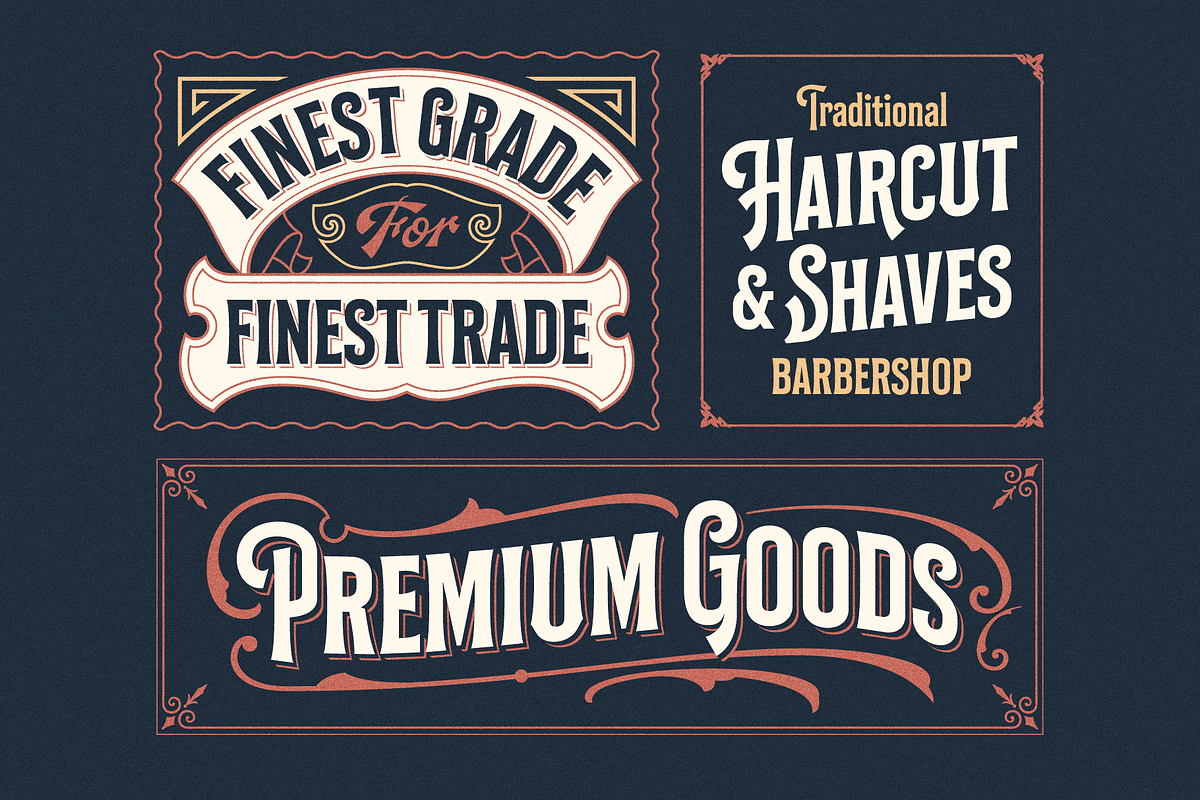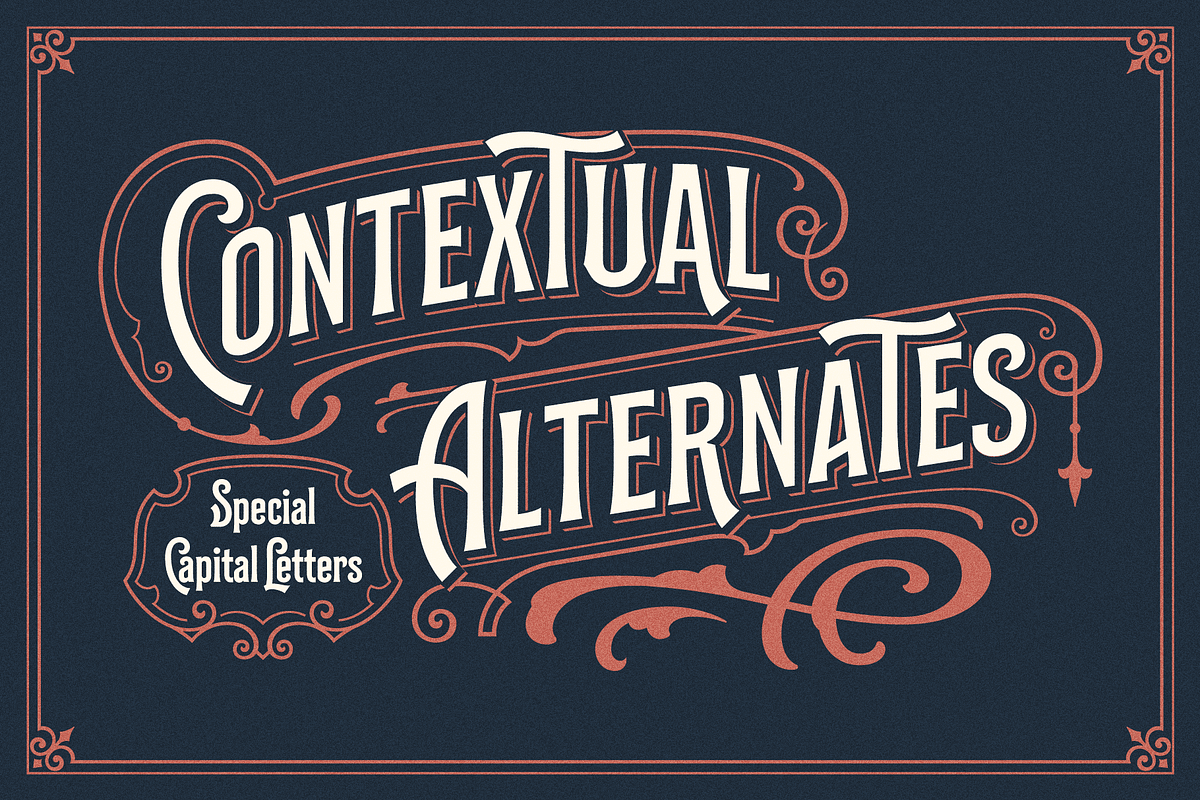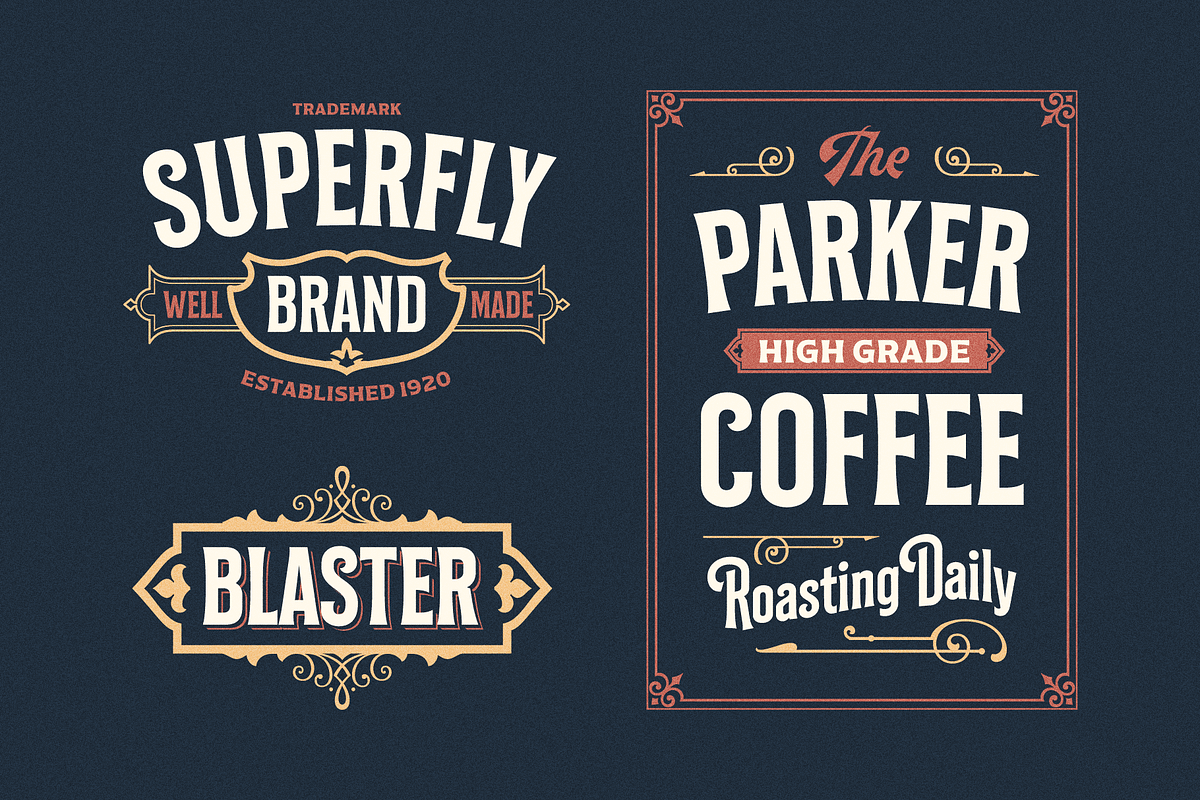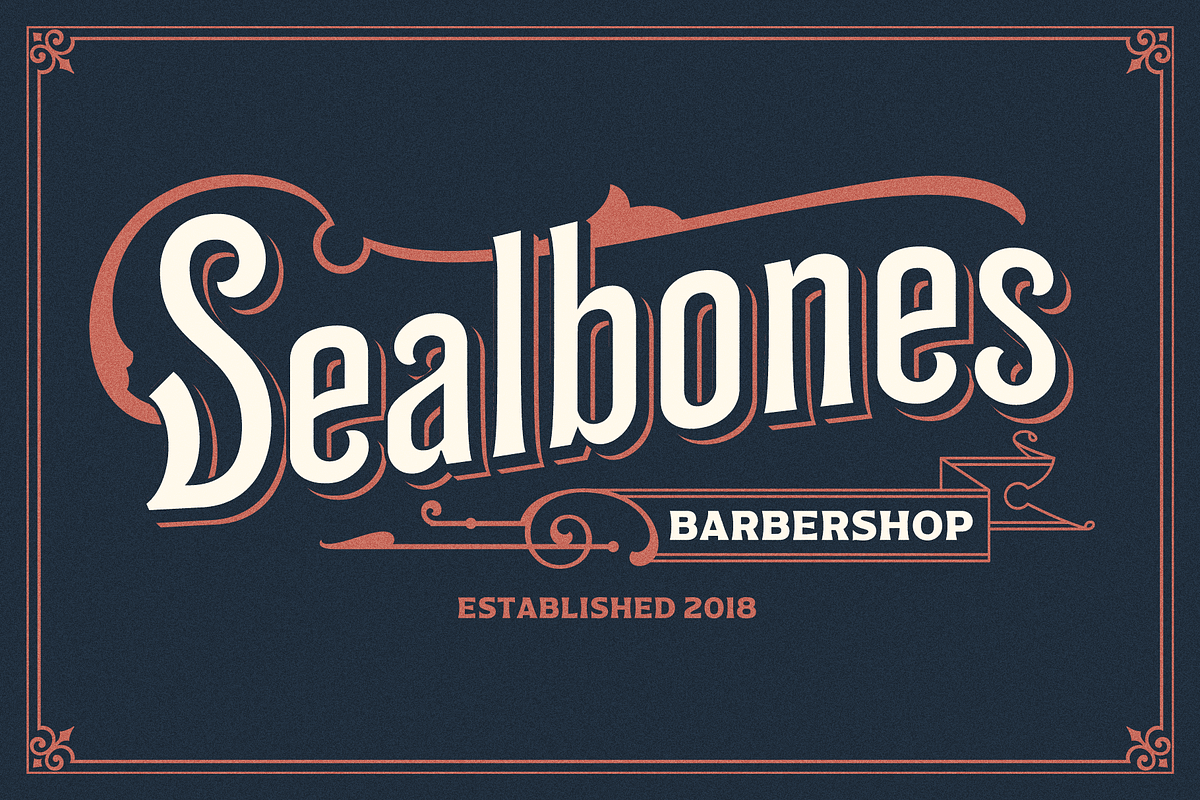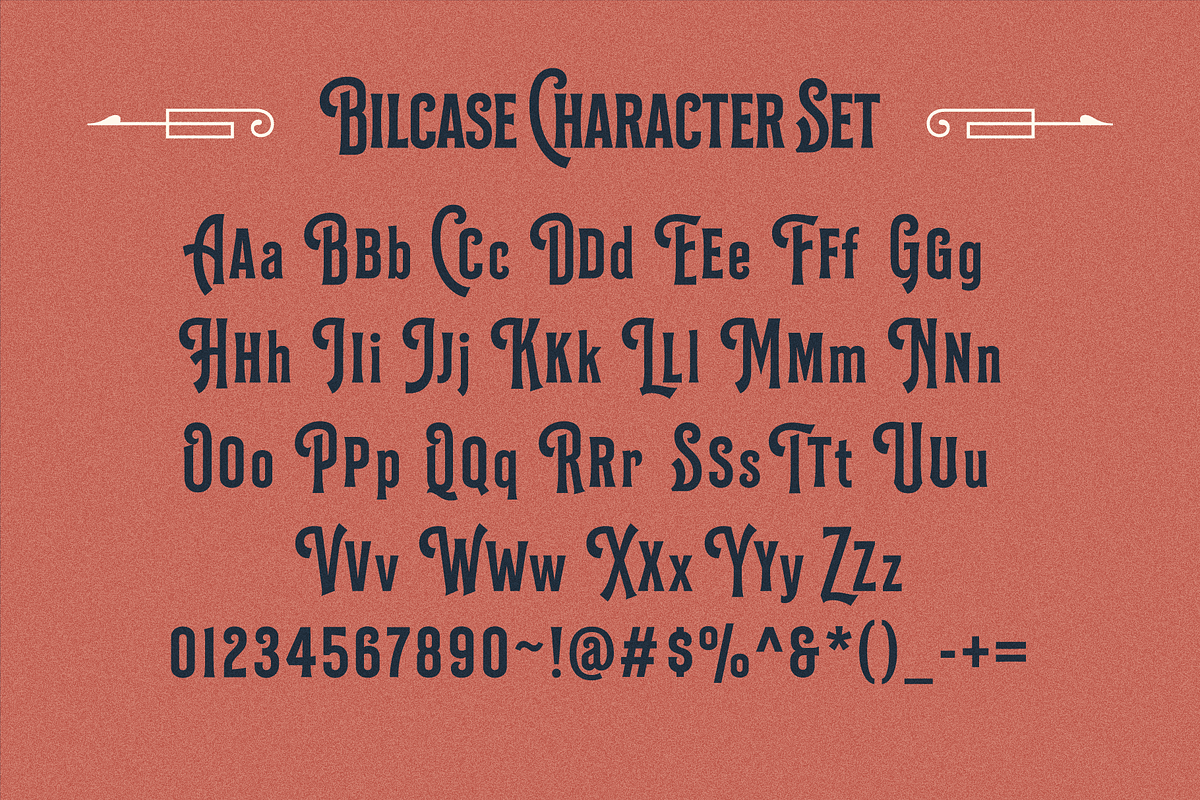
Bilcase Font and Extras
Bilcase font family is layered condensed font family come from vintage logo, labels, packages, and signage. this collection of styles with 5 layer and vintage scrolls, panels, and ornament possible to combination and option to create label designs, headlines, logotypes, signage, posters, greeting cards, letterhead, t-shirt and many more application.
Bilcase fonts are layered font with contextual, stylistic alternate and ligature, you will get special capital letters when you activate the contextual alternate feature.
Bilcase extras is the expanded version of the main font, in which there are Panels, Ribbon, and Ornament, you can access the ornament by activating the ligature feature in the extras bilcase. by typing the letter "p" for the panel, "r" for the ribbon and "o" for the ornament. activate the ligature feature and add numbers in each code. Example: "p1 p2 p11 r2 o2". Complete information contained in the pdf file. . You can try it in the font tester below.